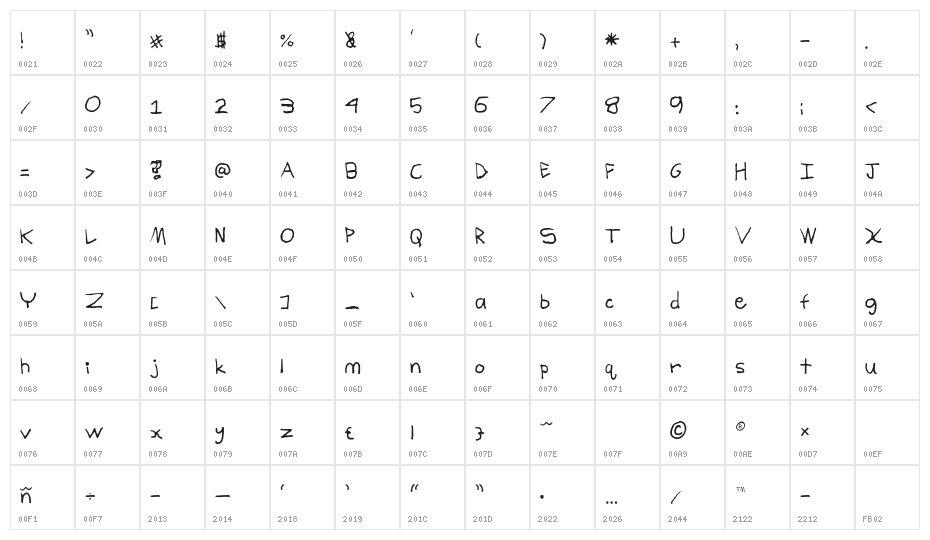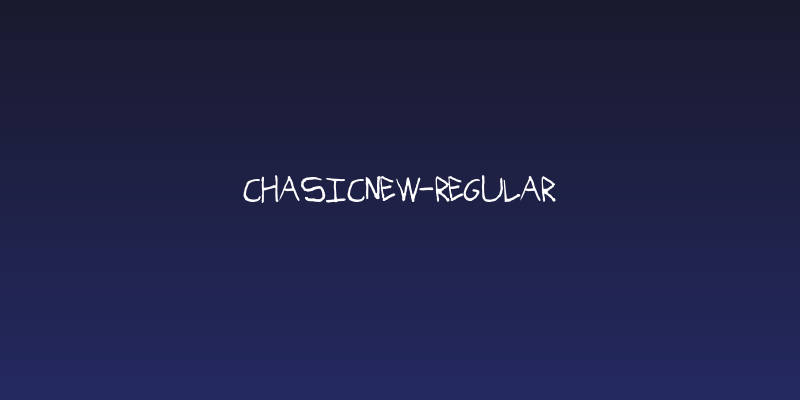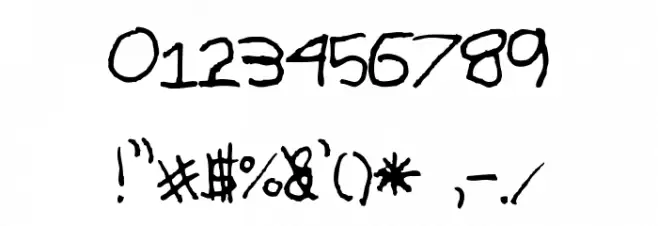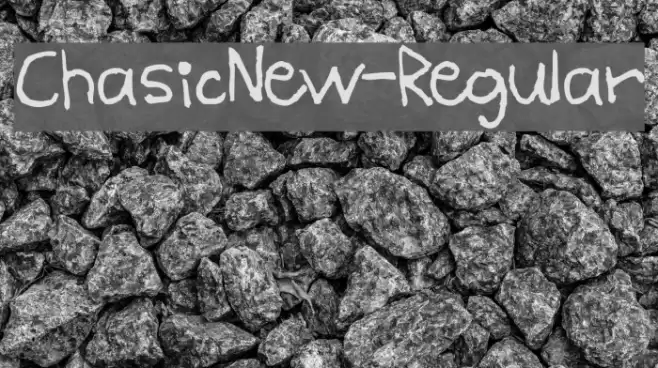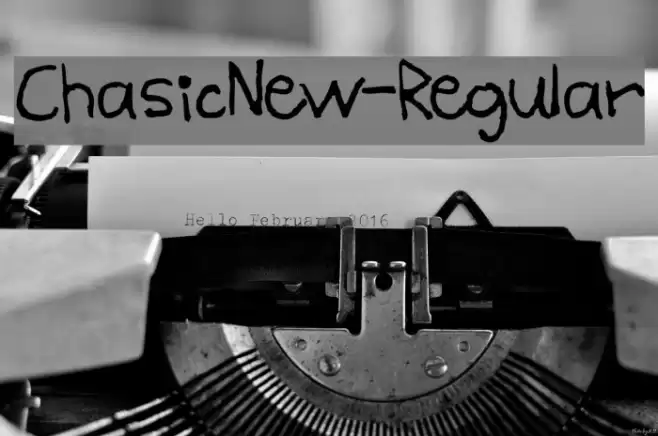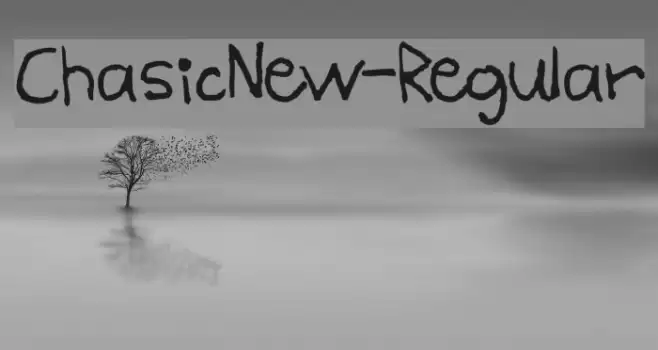
ChasicNew-Regular Font
ChasicNew-Regular Description
This font exhibits a playful and informal handwritten style, characterized by its irregular strokes and casual appearance. The uppercase letters are bold and slightly uneven, giving a sense of spontaneity and creativity. Lowercase letters maintain the same playful essence, with some characters having unique, quirky shapes that add to the font's charm. The numbers and special characters are consistent with the overall style, featuring the same hand-drawn aesthetic. This font is ideal for projects that require a personal touch or a sense of whimsy, such as children's books, creative posters, or casual branding.
| Proposed Projects | Children's books, creative posters, casual branding, personal invitations. |